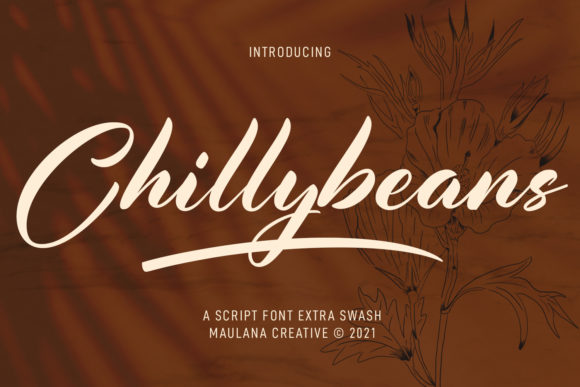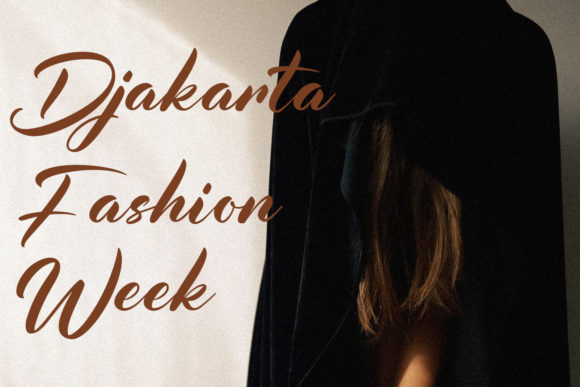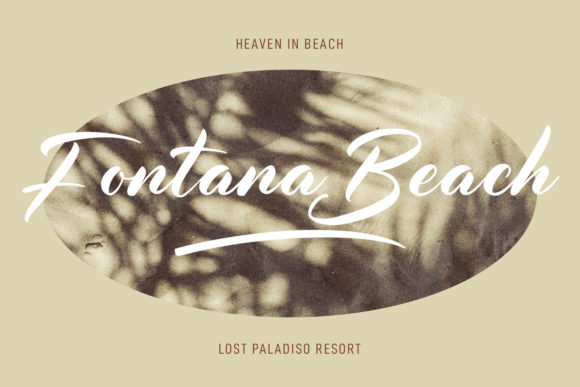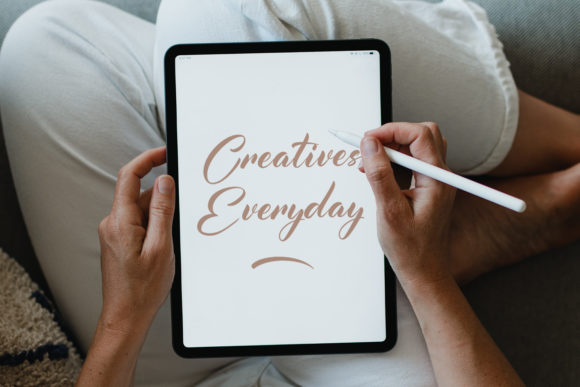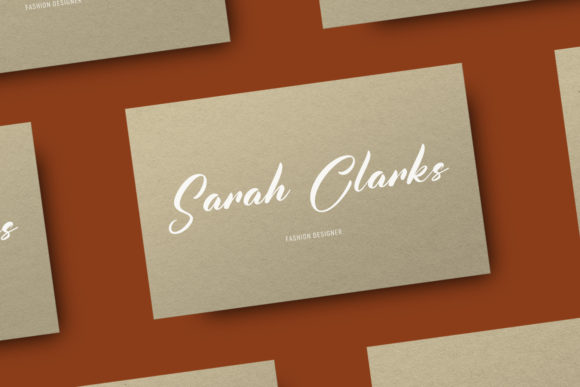
Chillybeans Script Font
About Chillybeans Script Font
Chillybeans Script is a lovely and delicate script font that exudes elegance and class. This font was particularly crafted for those who need a beautiful and refreshing look to their designs.